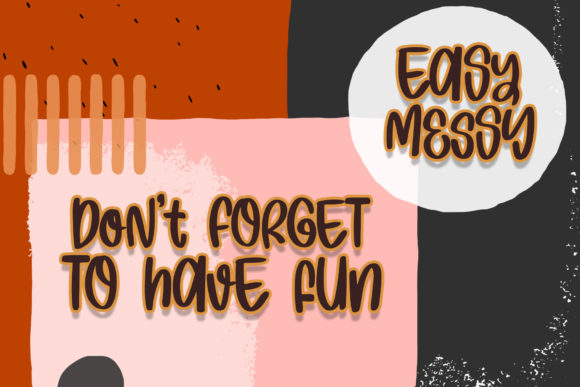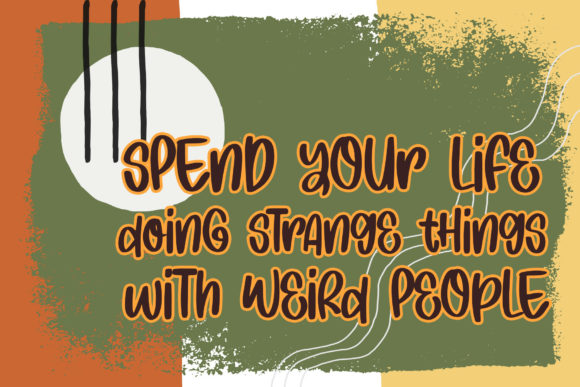
Easy Messy Font
db-ku.com - Script & Handwritten -- Easy Messy is a quirky and fun handwritten font. This adaptable font will look great on a variety of design ideas. It will add a fun and friendly touch to each of your projects!